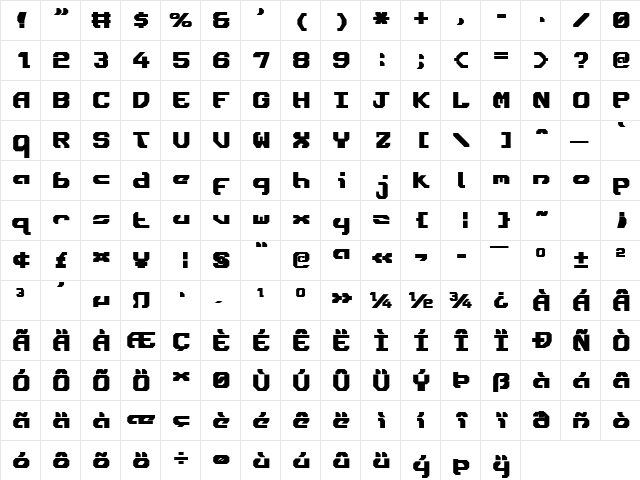
Ensign Flandry Bold Bold
Design Context for Ensign Flandry Bold Typeface
Ensign Flandry Bold is a composed and adaptable typeface that performs quietly and consistently across a wide range of design contexts. The heavy weight commands attention and anchors typographic hierarchies.
Pro Tip: Use Ensign Flandry Bold in both headline and body roles to test its range before committing to a single application.